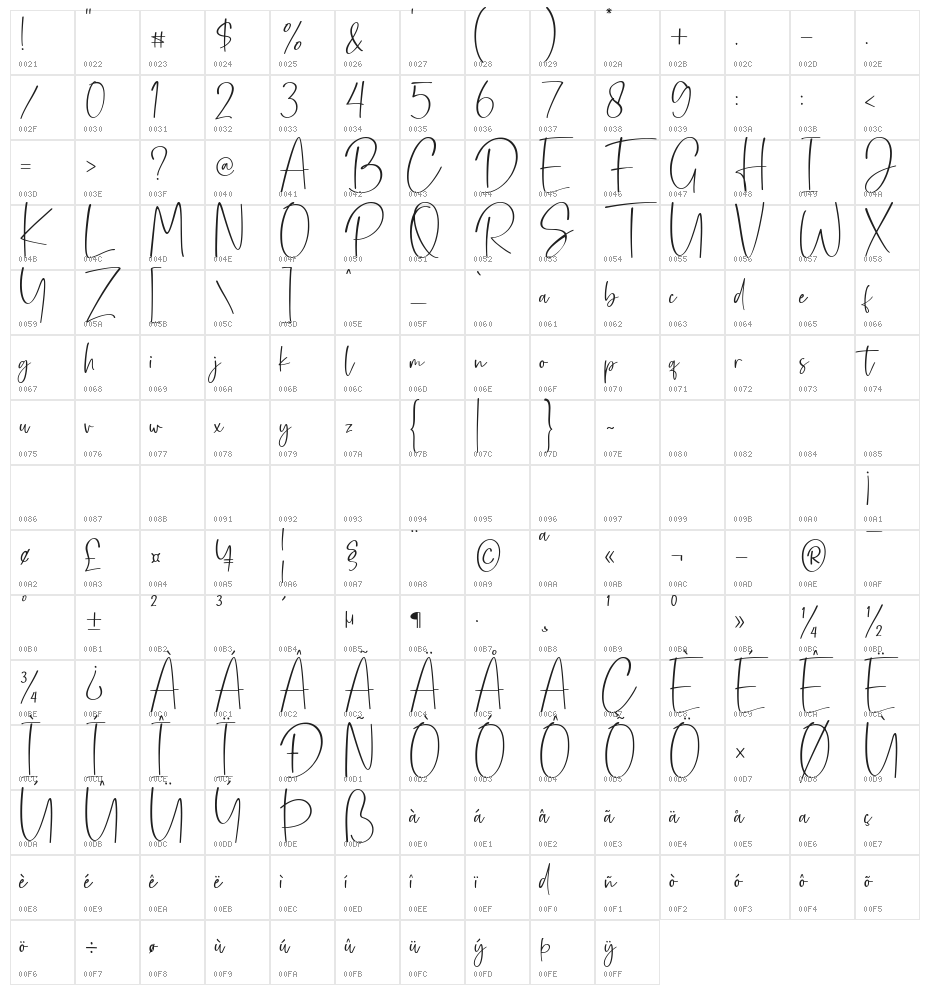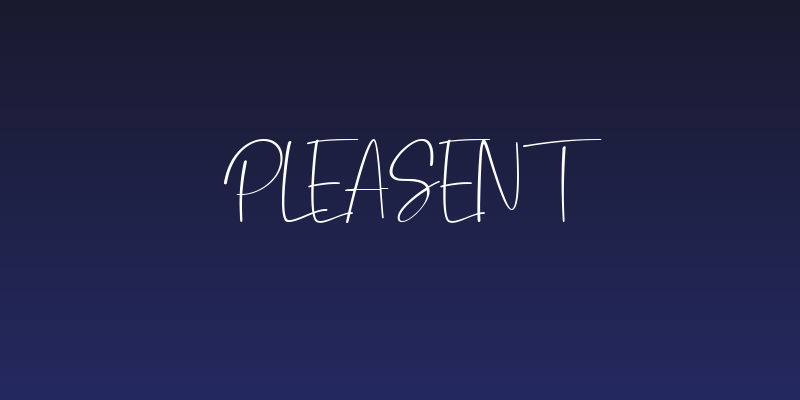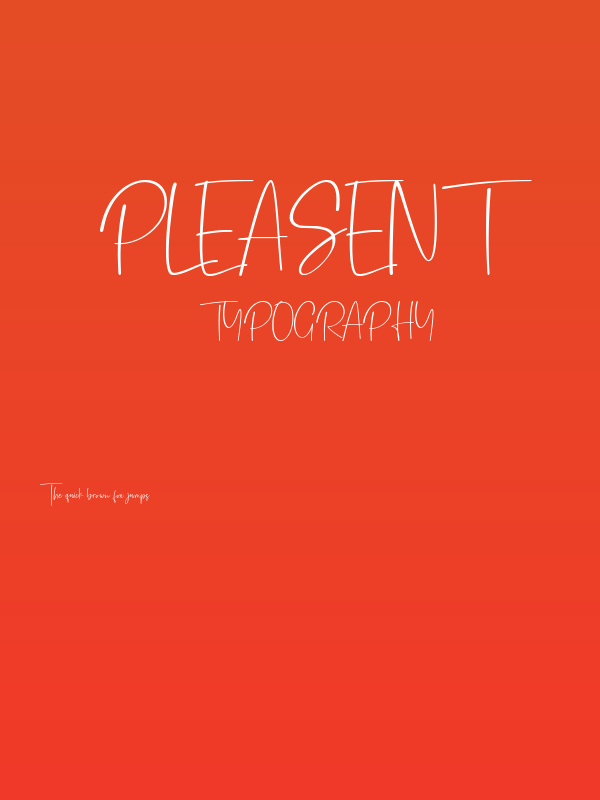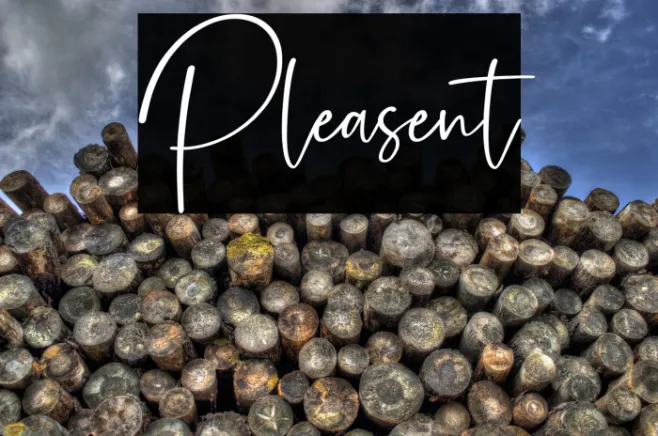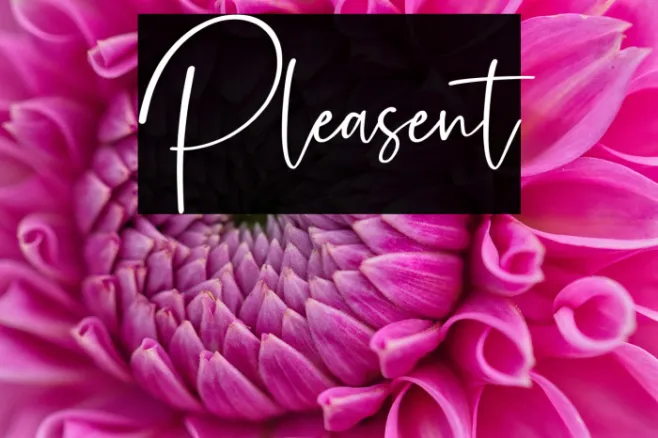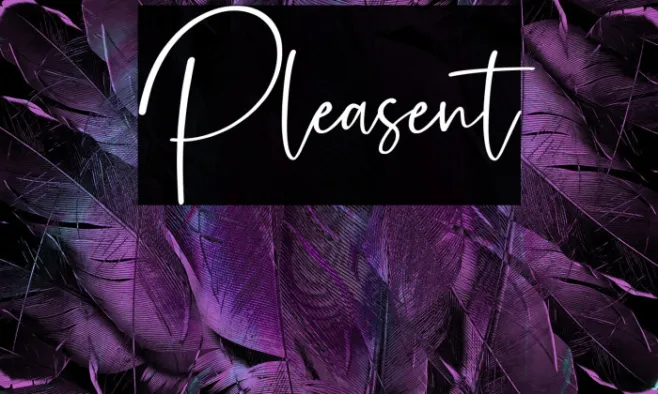
Pleasent Font
Pleasent Description
This font features a playful and elegant handwritten style, characterized by its fluid and flowing strokes. The uppercase letters are tall and slender, with a slight slant that adds a dynamic feel. The lowercase letters maintain a consistent style, with some letters featuring unique loops and curves that enhance the font's charm. Numbers are clear and legible, matching the overall aesthetic. Special characters are thoughtfully designed to complement the alphabet, ensuring a cohesive look across all text. The font's overall appearance is both modern and whimsical, making it suitable for a variety of creative projects.
| Proposed Projects | Ideal for wedding invitations, greeting cards, branding, and social media graphics. |